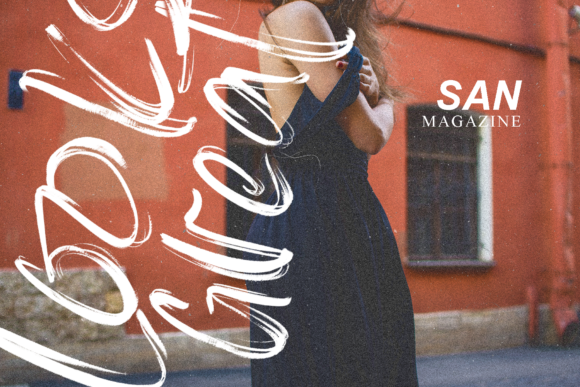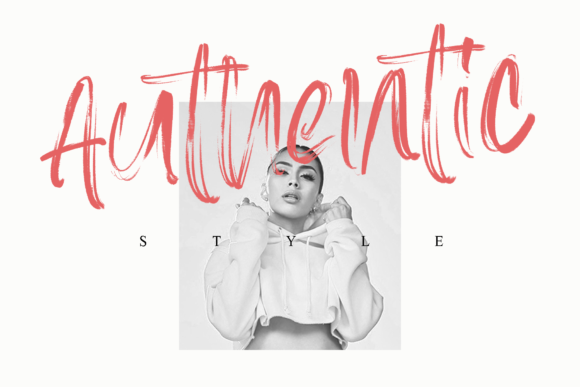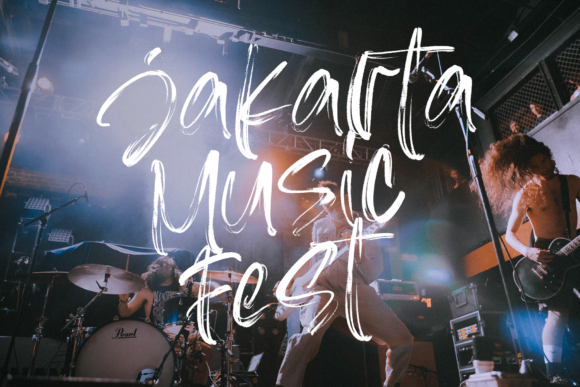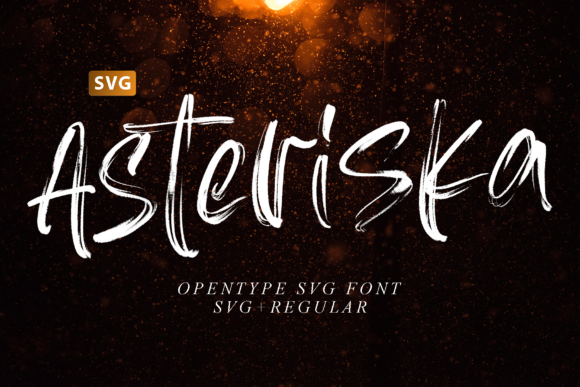
Asteriska Font
Asteriska is a dynamic and beautiful display font. It looks strong, realistic, and has a unique touch. Get inspired by it, and use it for any design project that needs an authentic twist.